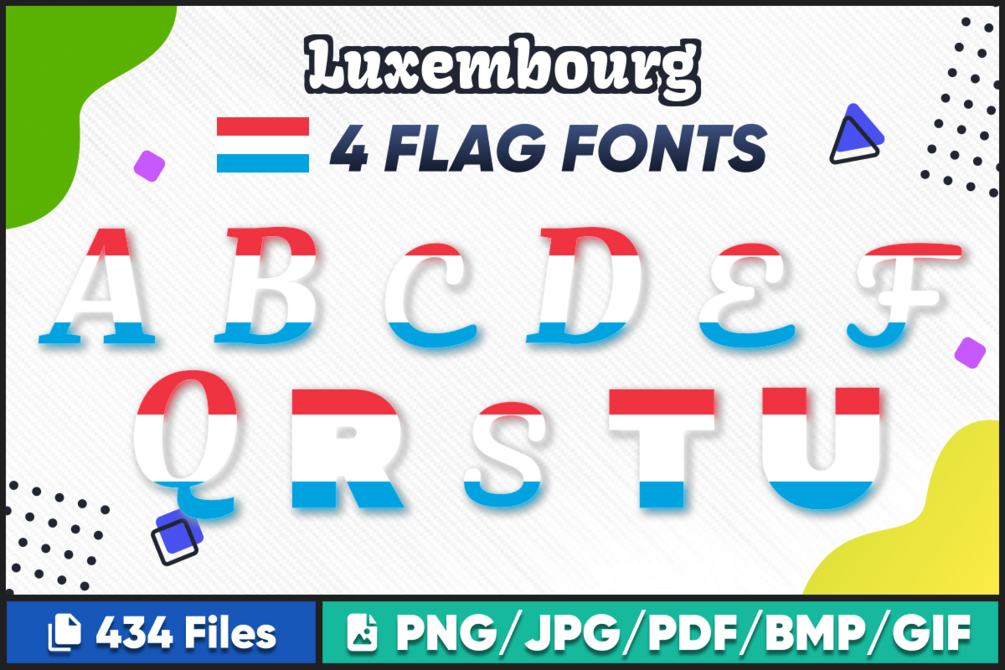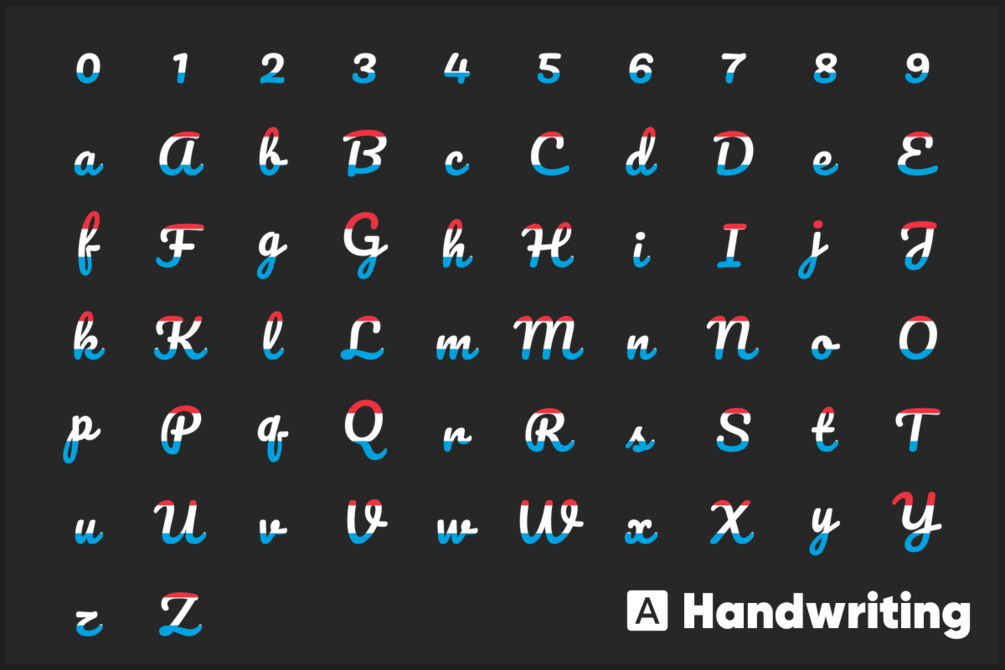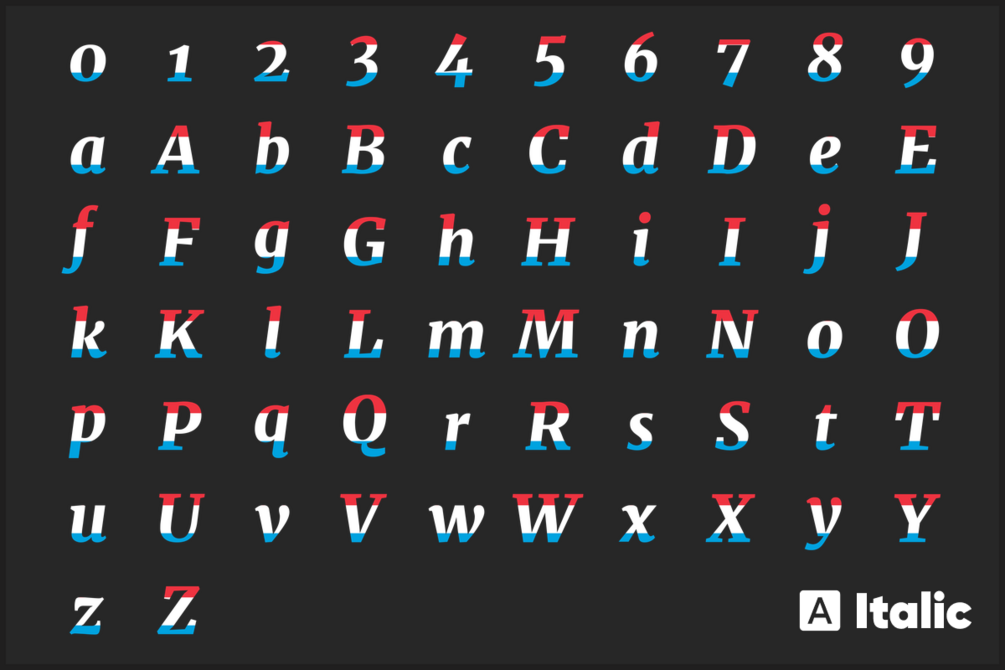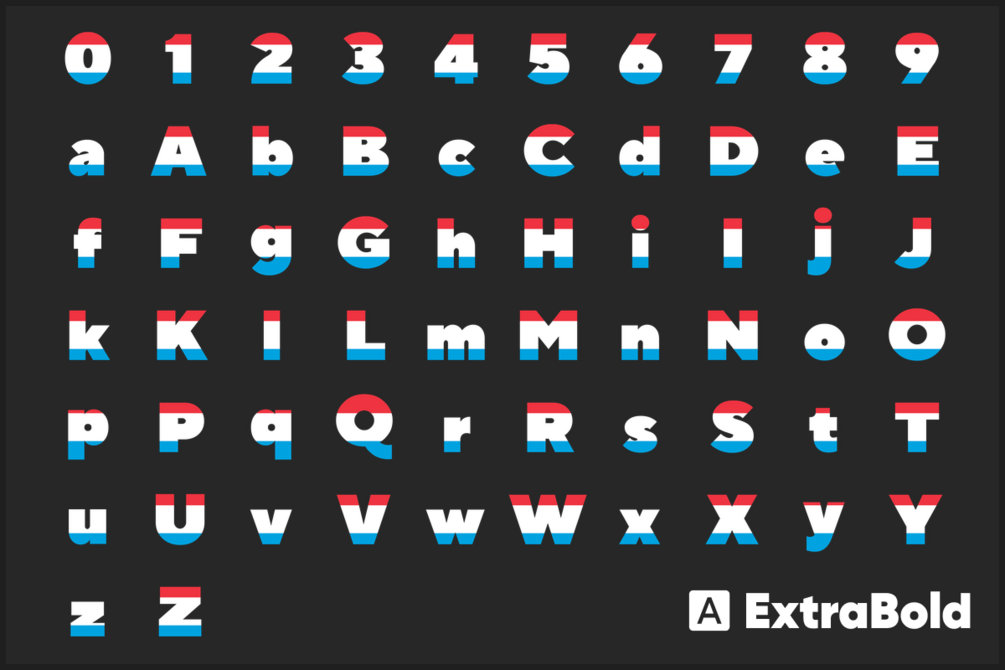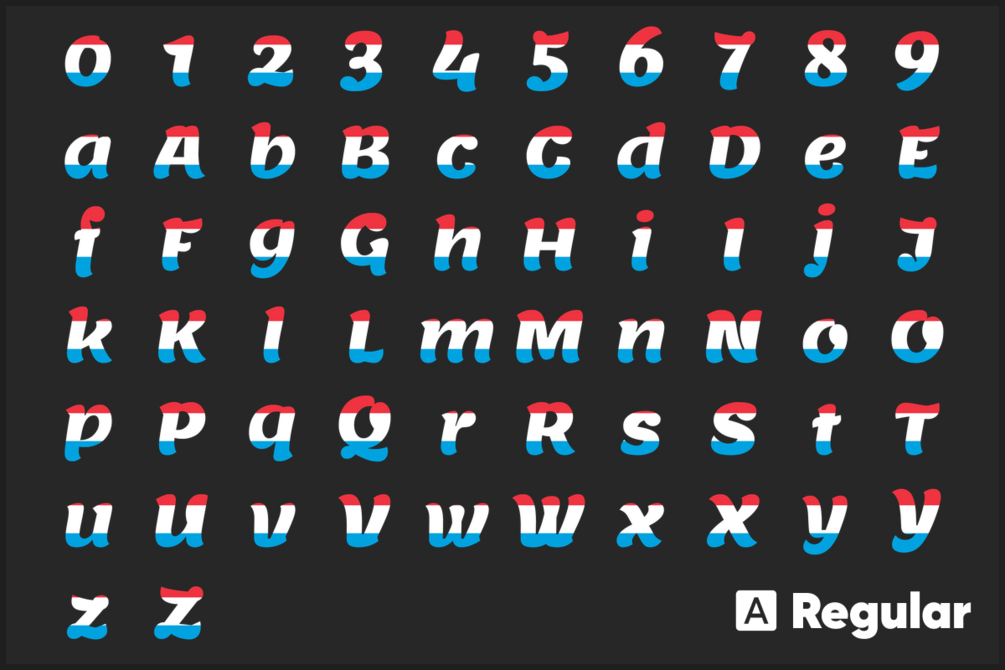
Luxembourg Font free download
Looking for a stylish and creative way to express your love for your country? Look no further than Luxembourg Font free download Flag Font, Alphabet. Our high-quality country font images are perfect for all your crafting needs, including t-shirt designs, scrapbooking, photo albums, card making, mug designs, prints, and more.